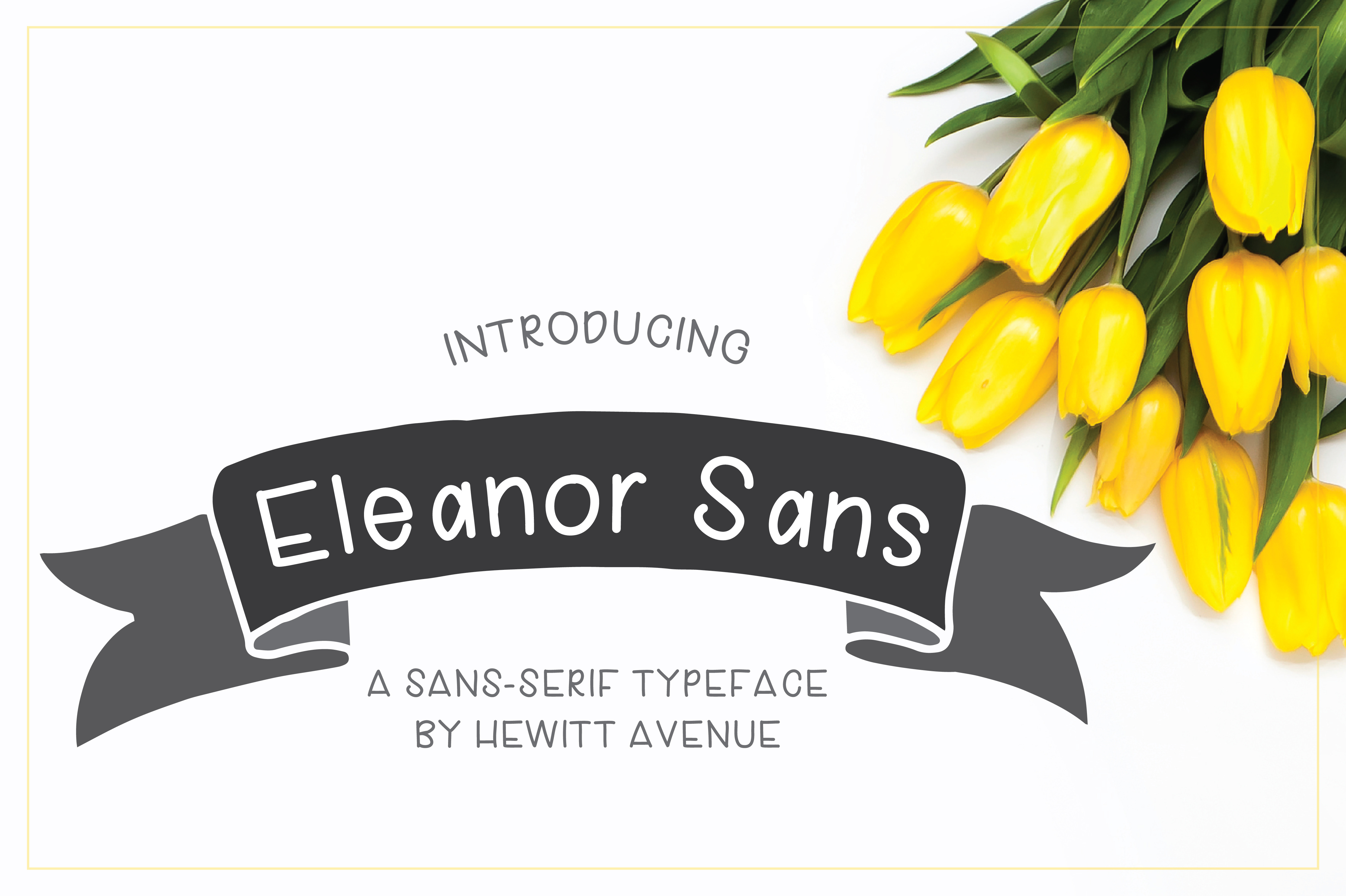
Eleanor Sans Serif Font
Eleanor Sans is a hand written typeface that is a perfect compliment to a variety of typefaces and is easy to read.
No alternates or foreign alphabets supported at this time. See glyph map for complete list of available glyphs (second image).